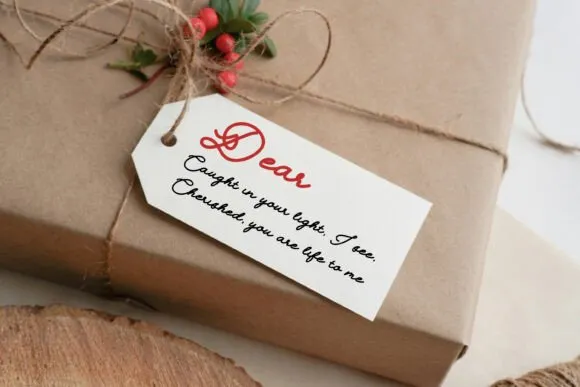
Free Lunara Handwriting Fonts
Lunara Handwriting Fonts is a flawlessly created script text style that oozes tastefulness and an individual touch. Intended to duplicate the ease of normal penmanship, it offers an amicable mix of complexity and realness, pursuing it an optimal decision for both present day and immortal plans.
Lunara Handwriting Fonts text style is ideal for adding a dash of warmth and style to your innovative undertakings.
Its smooth, streaming strokes and adjusted letterforms make it reasonable for a large number of purposes, from wedding solicitations and marking to hello cards and bundling.
Lunara Penmanship Content 6.3 easily lifts your plans, giving them an expert yet congenial feel.